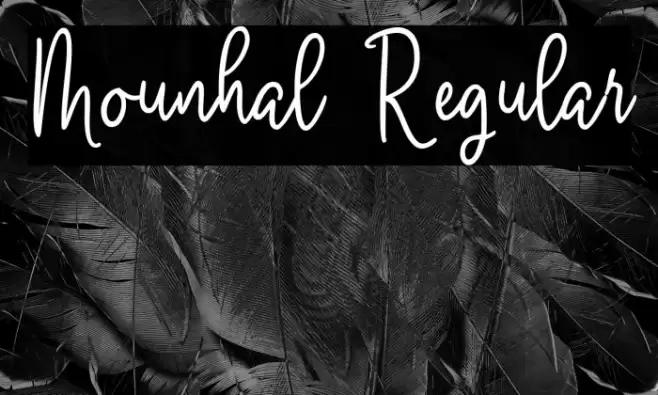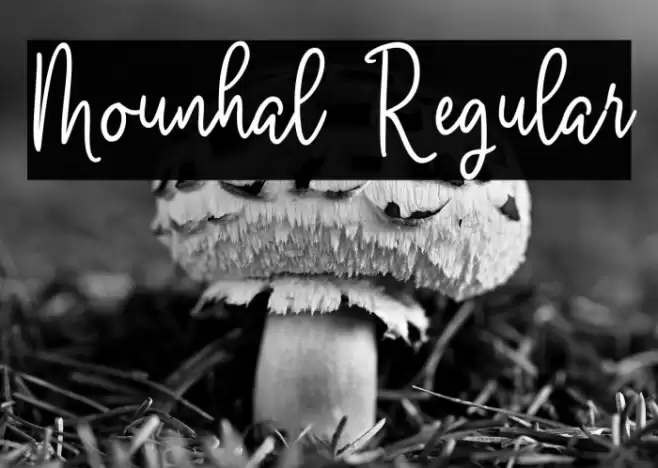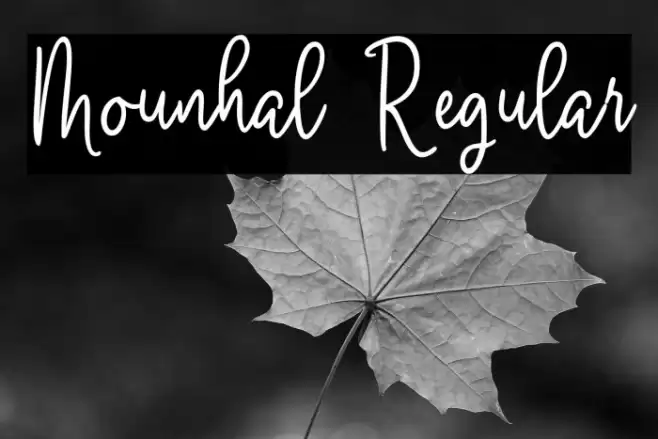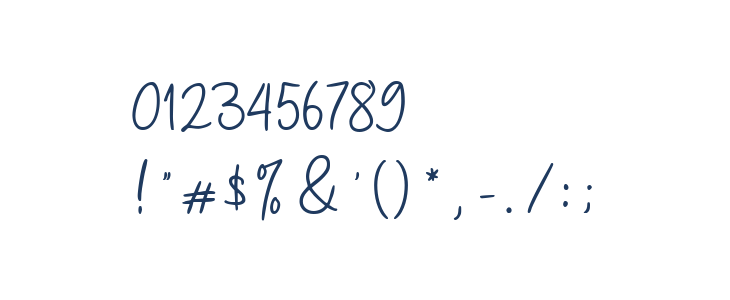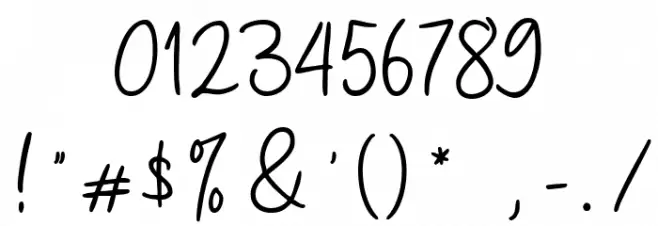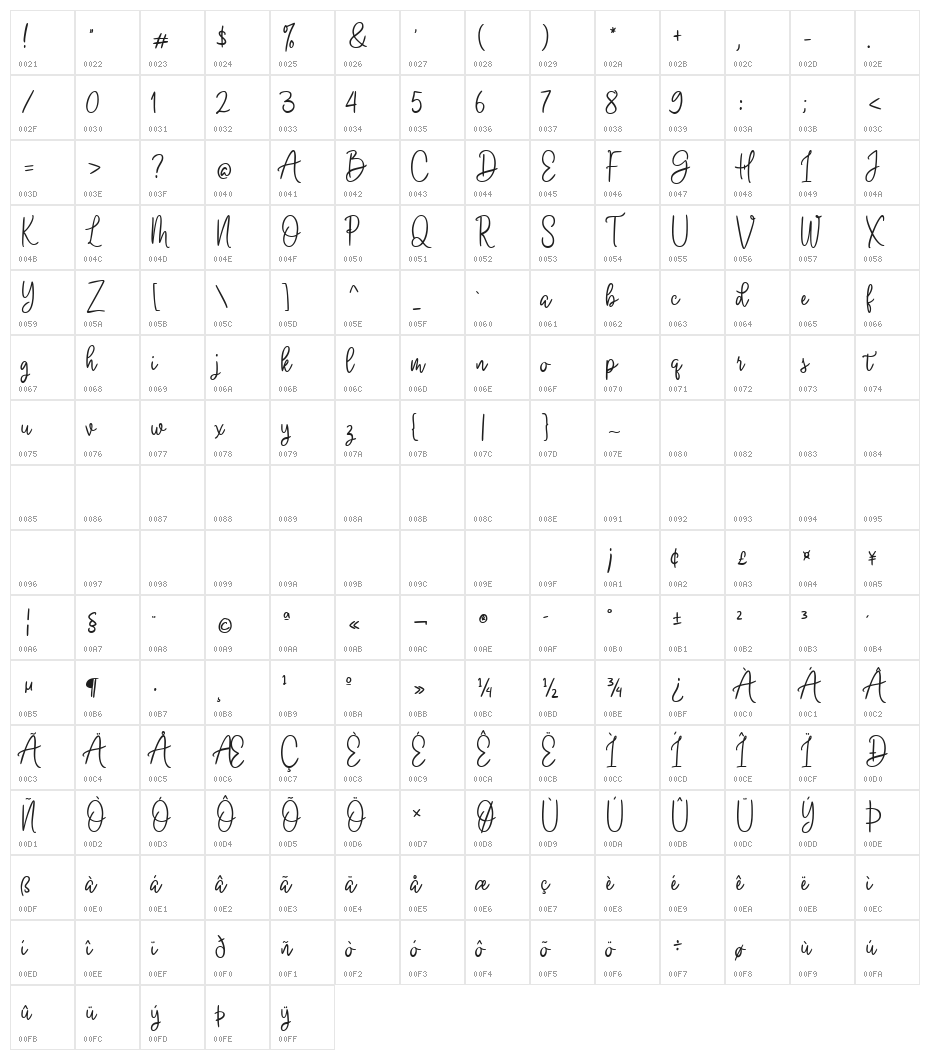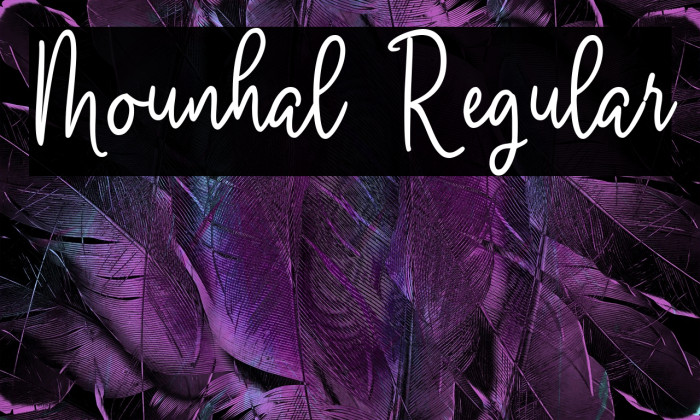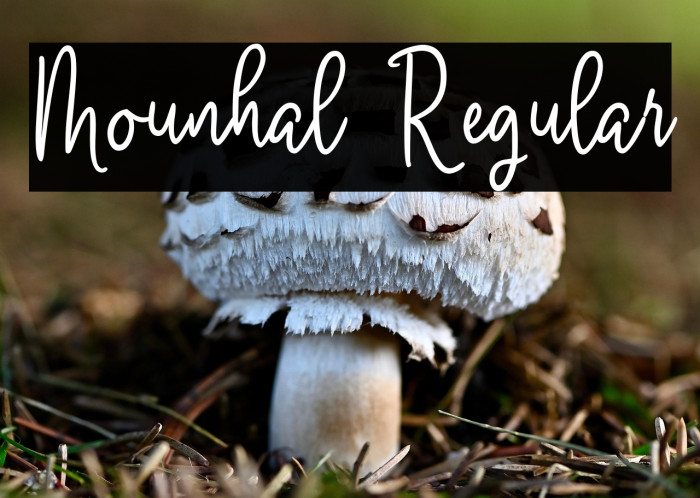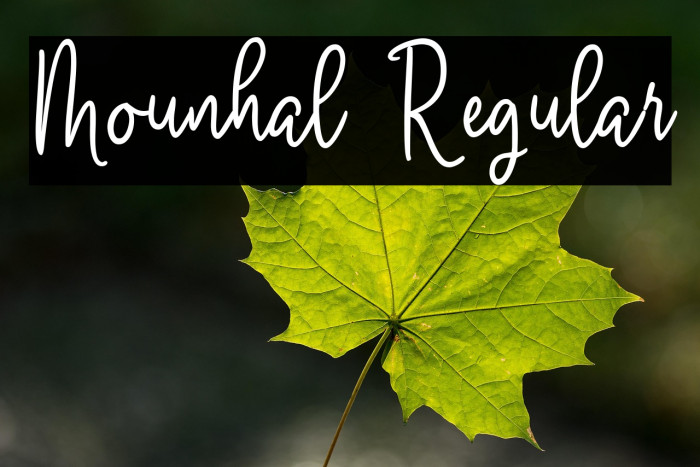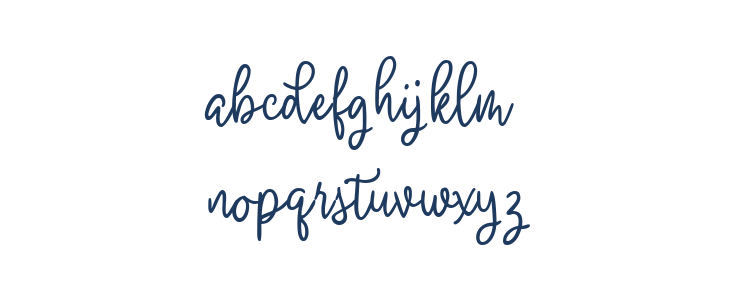
Mounhal Regular Font
Mounhal Regular Description
This font features a playful and elegant handwritten style, characterized by its fluid and continuous strokes. The uppercase letters are tall and slender, with a slight slant that adds a dynamic feel. Lowercase letters are more compact, maintaining a consistent flow that enhances readability. The numerals are clear and distinct, matching the overall aesthetic. Special characters are creatively integrated, maintaining the whimsical nature of the design. This font is perfect for projects that require a personal touch, such as invitations, greeting cards, or branding materials.
A playful and elegant handwritten font with fluid strokes from Regular fonts.
- Proposed Projects: Ideal for invitations, greeting cards, branding, and personal projects.
- Use Case: Headlines, Logos, Invitations